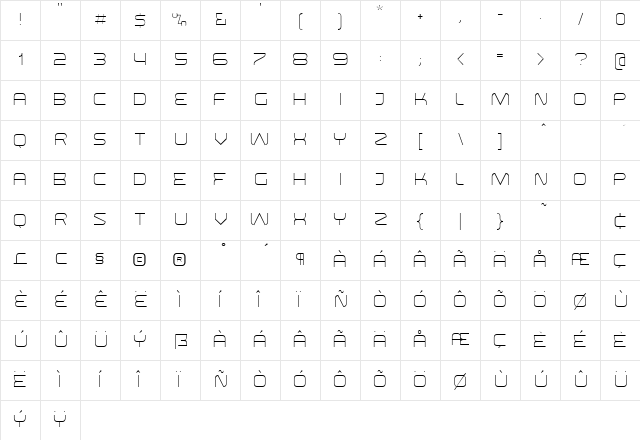
SwiszLight Regular
Design Context for SwiszLight Typeface
SwiszLight is a composed and adaptable typeface that performs quietly and consistently across a wide range of design contexts. The delicate stroke weight brings airiness and refinement to layouts.